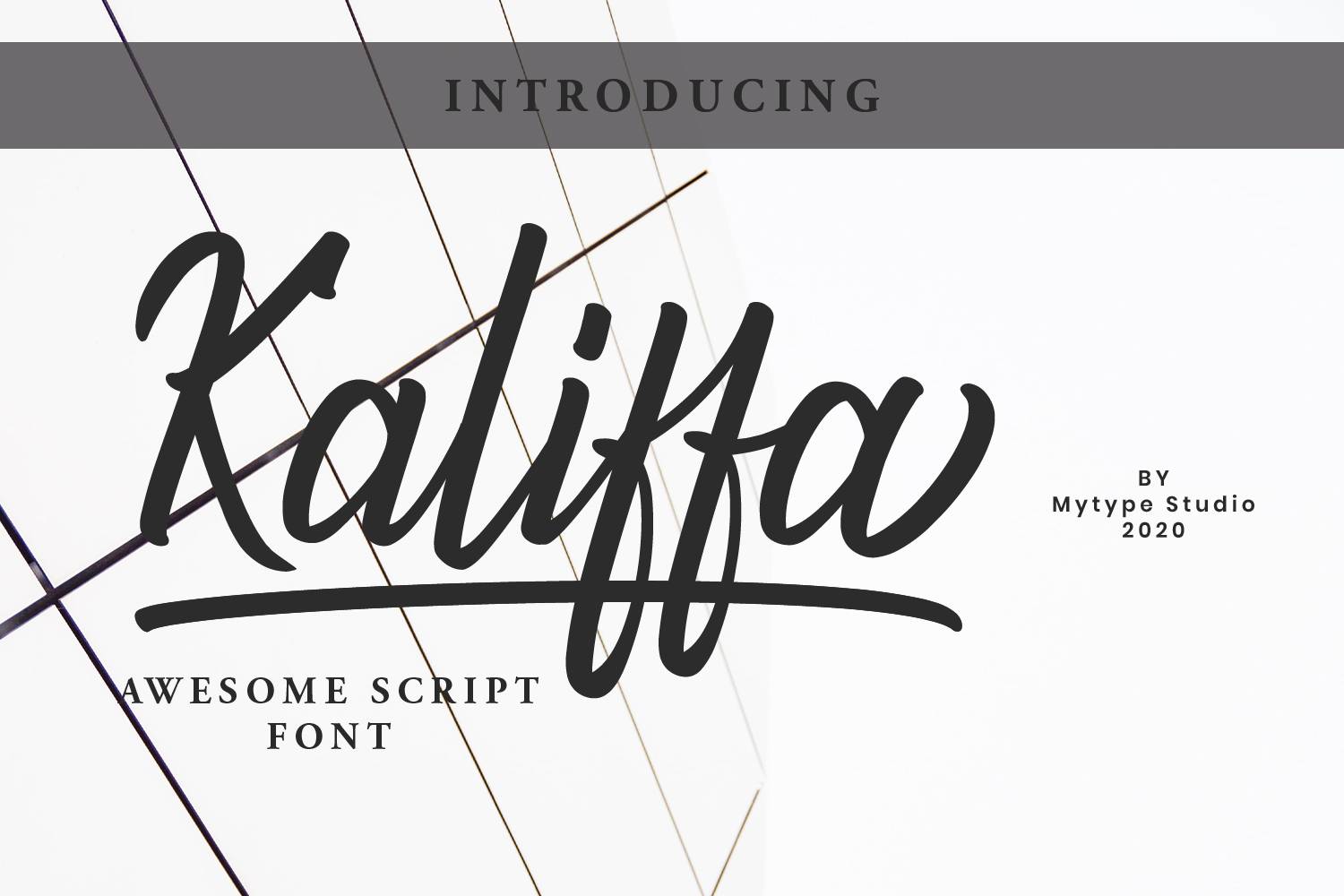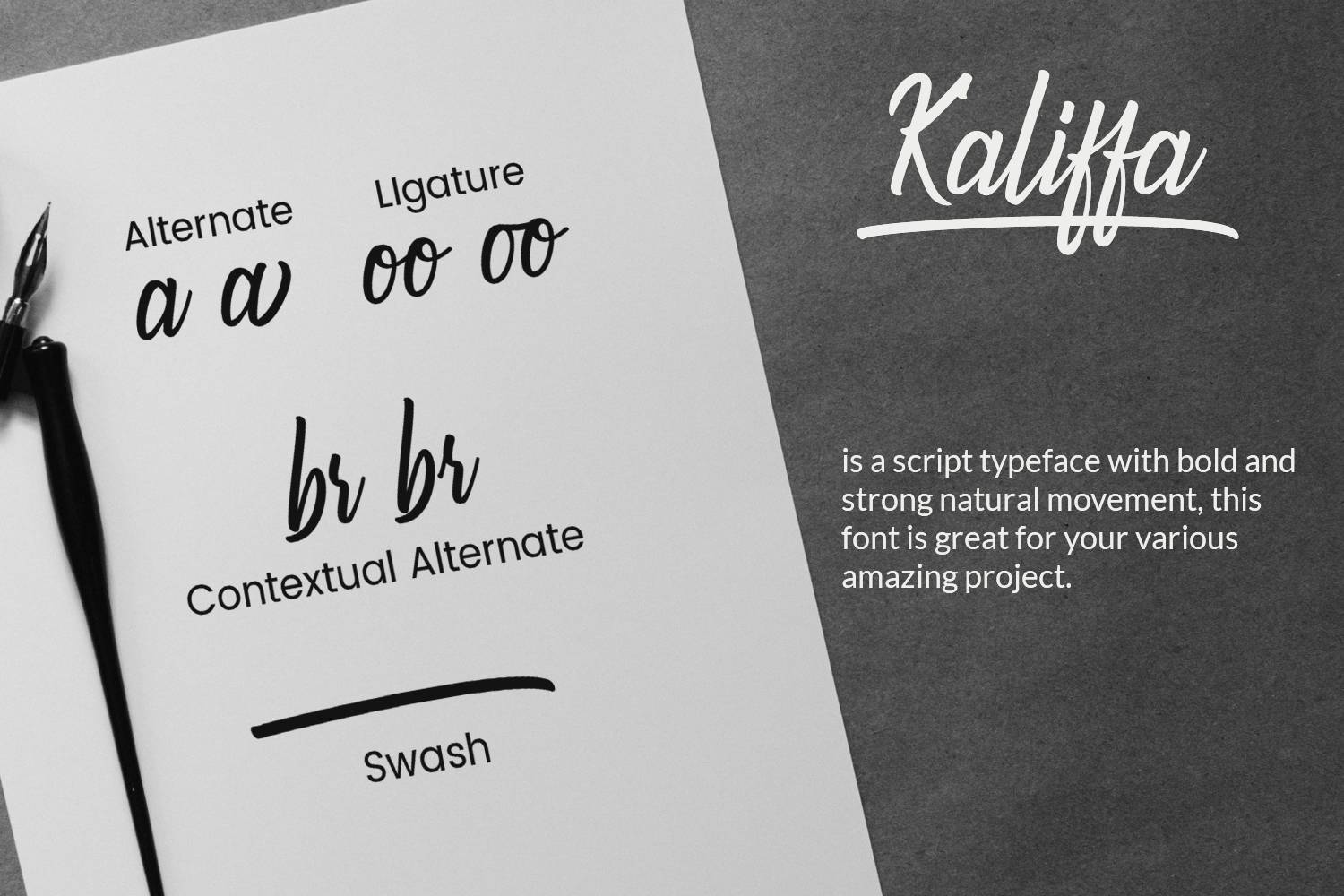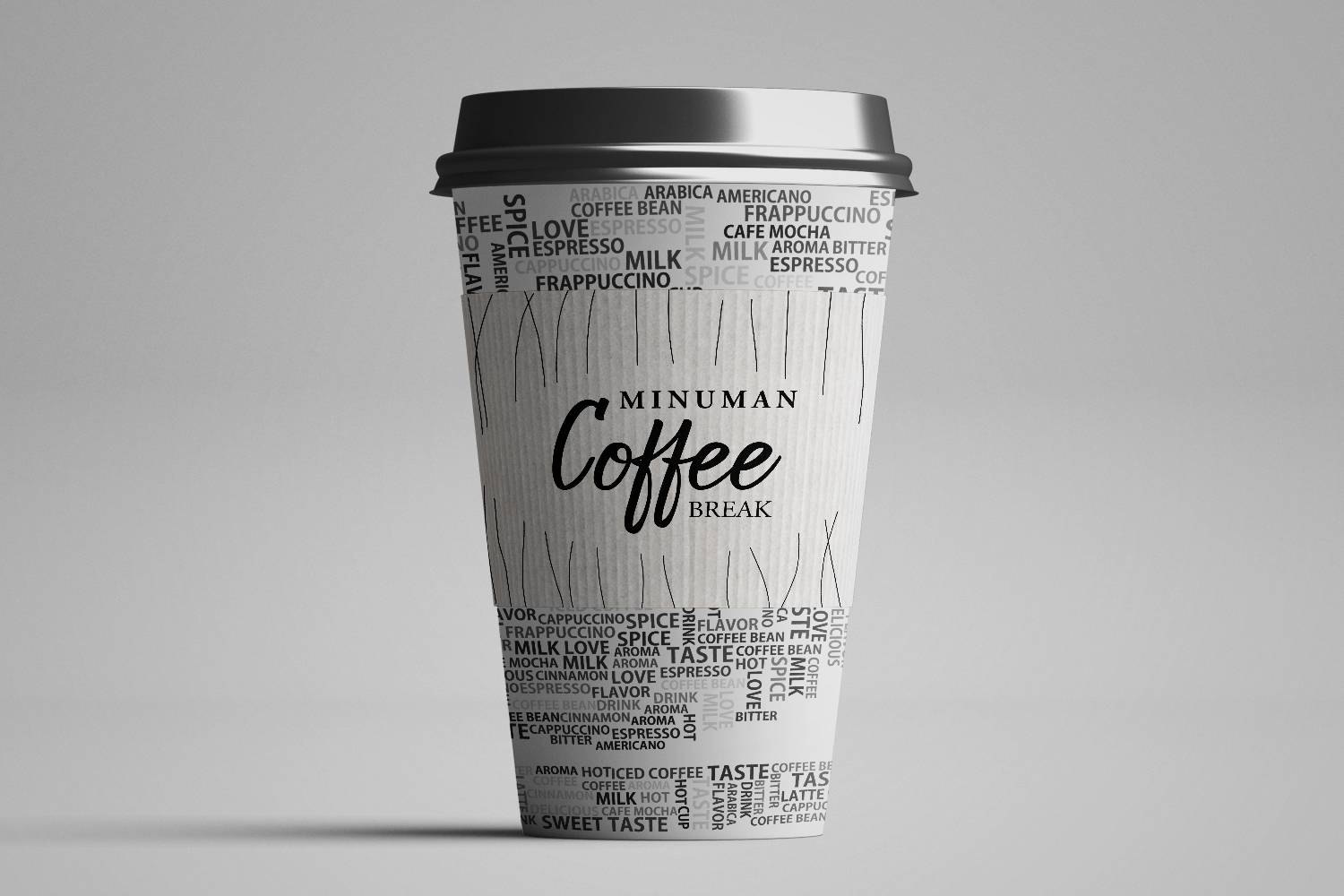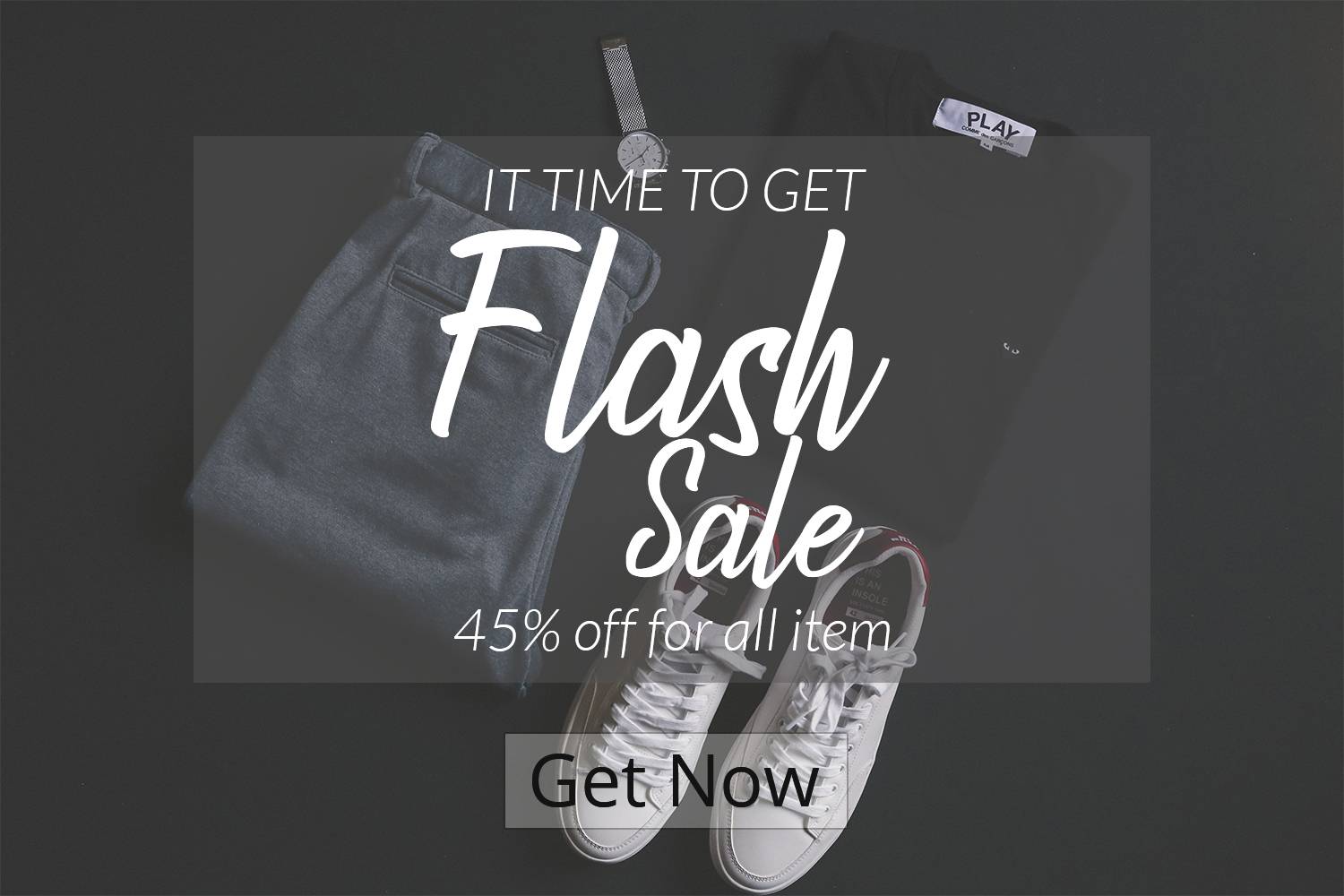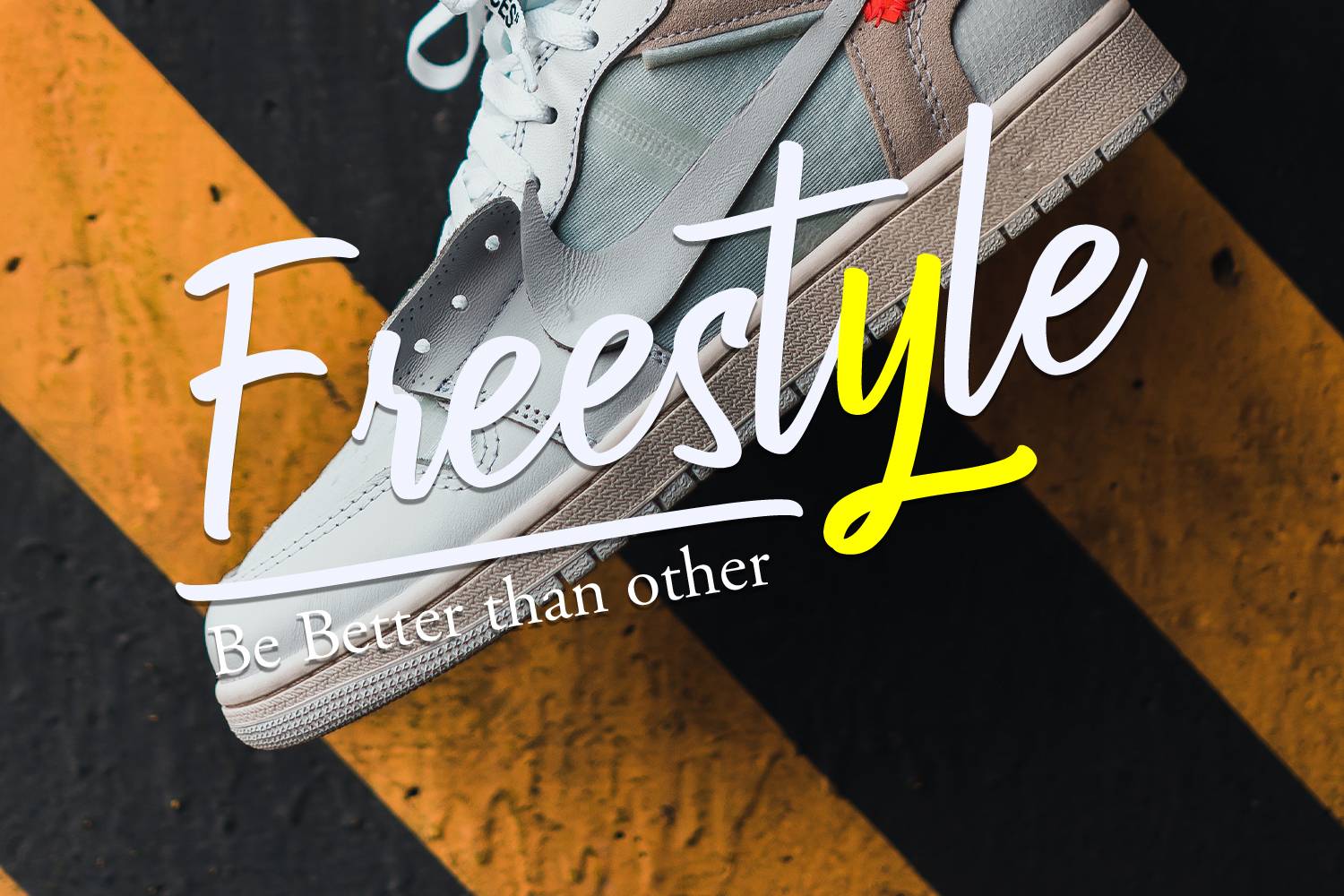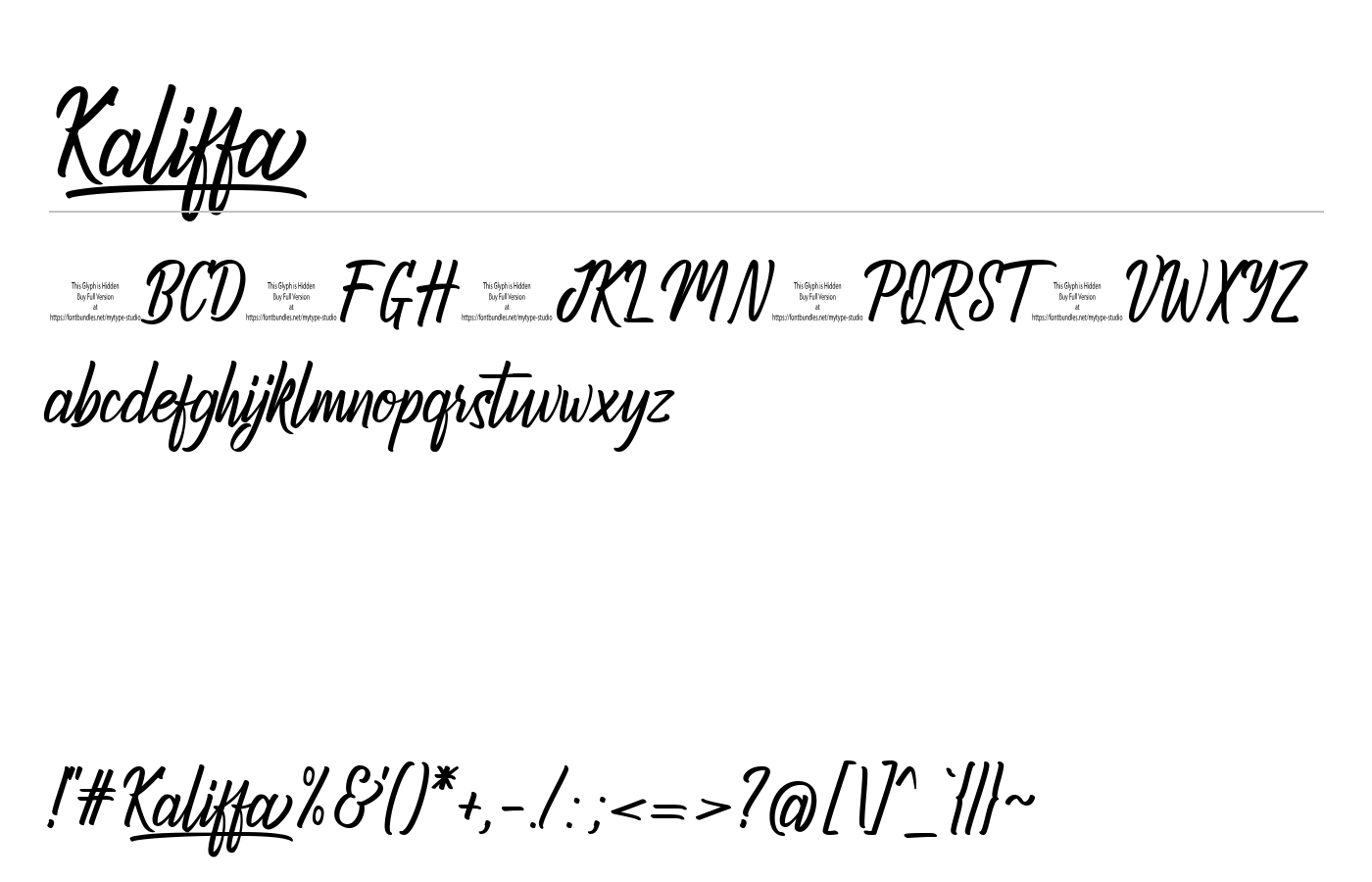
Kaliffa is a graceful script font with a casual yet elegant feel, featuring fluid, slightly slanted letterforms that mimic natural handwriting. Its moderate weight and smooth strokes give it a warm, personal touch, making it perfect for branding, invitations, and creative projects seeking a stylish but approachable look. This font works beautifully for logos and headlines where a handcrafted, friendly vibe is desired.
Kaliffa Font
About Kaliffa Font
| Font family | Kaliffa Font |